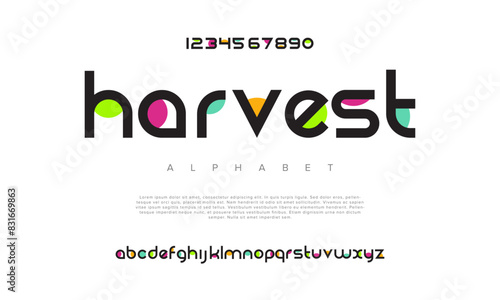
Harvest creative geometric modern urban alphabet font. Digital abstract futuristic, fashion, sport, minimal technology typography. Simple numeric vector illustration